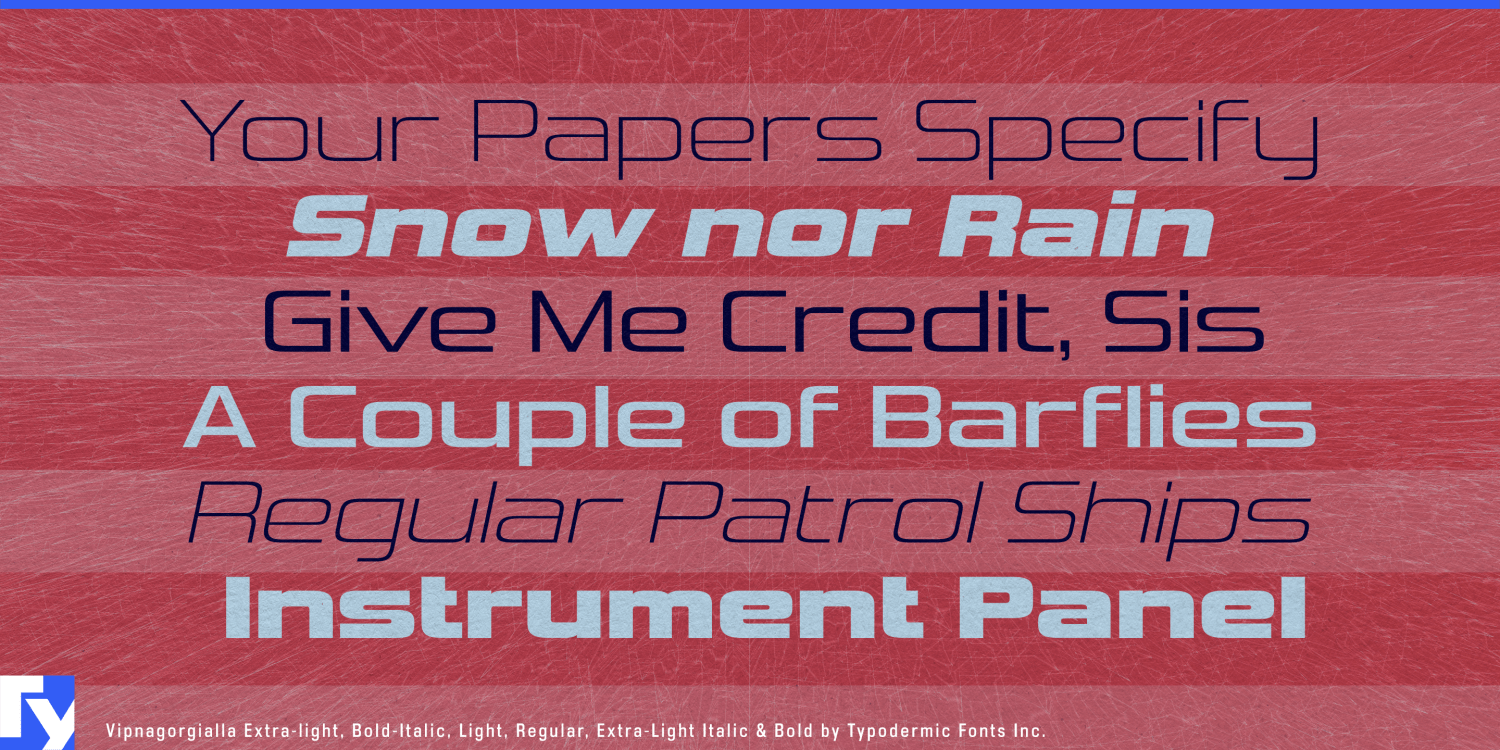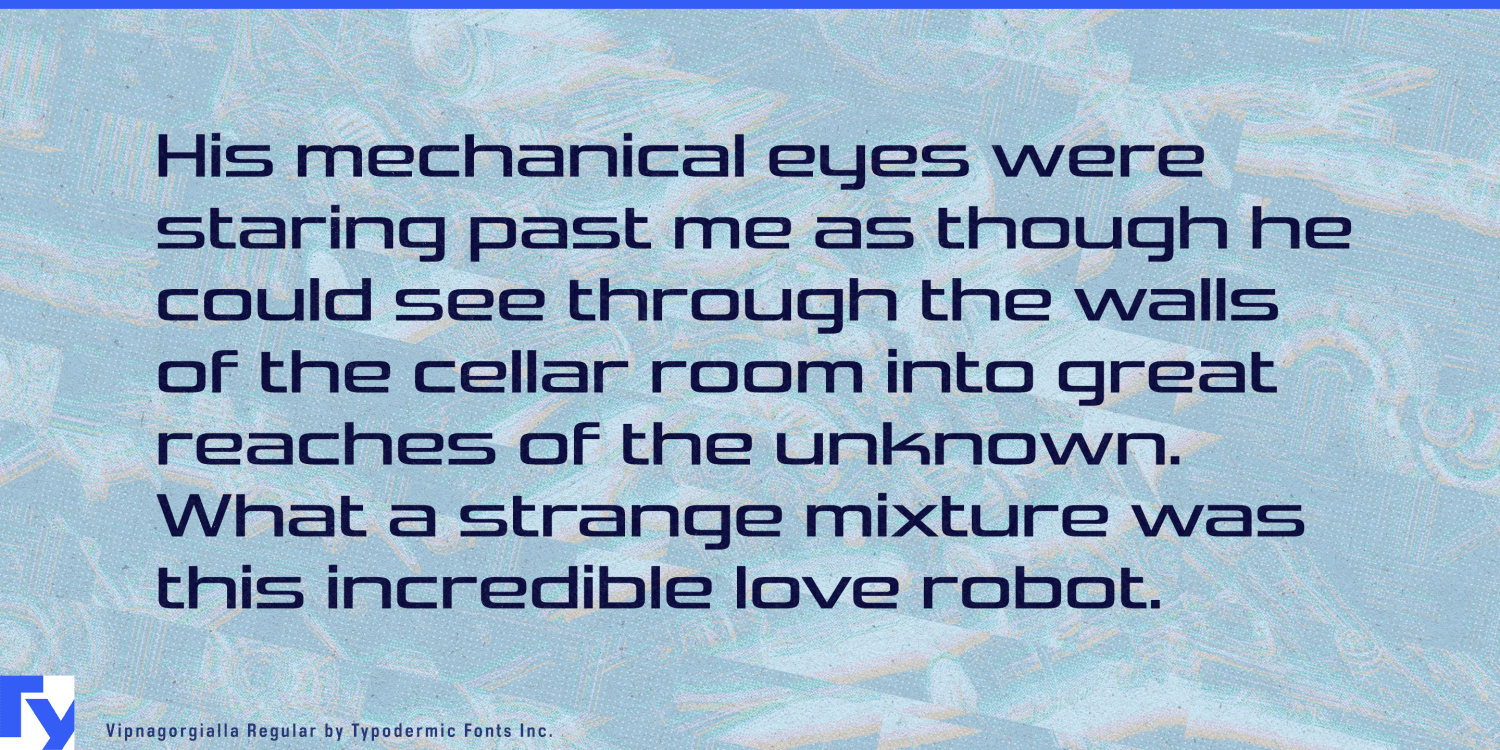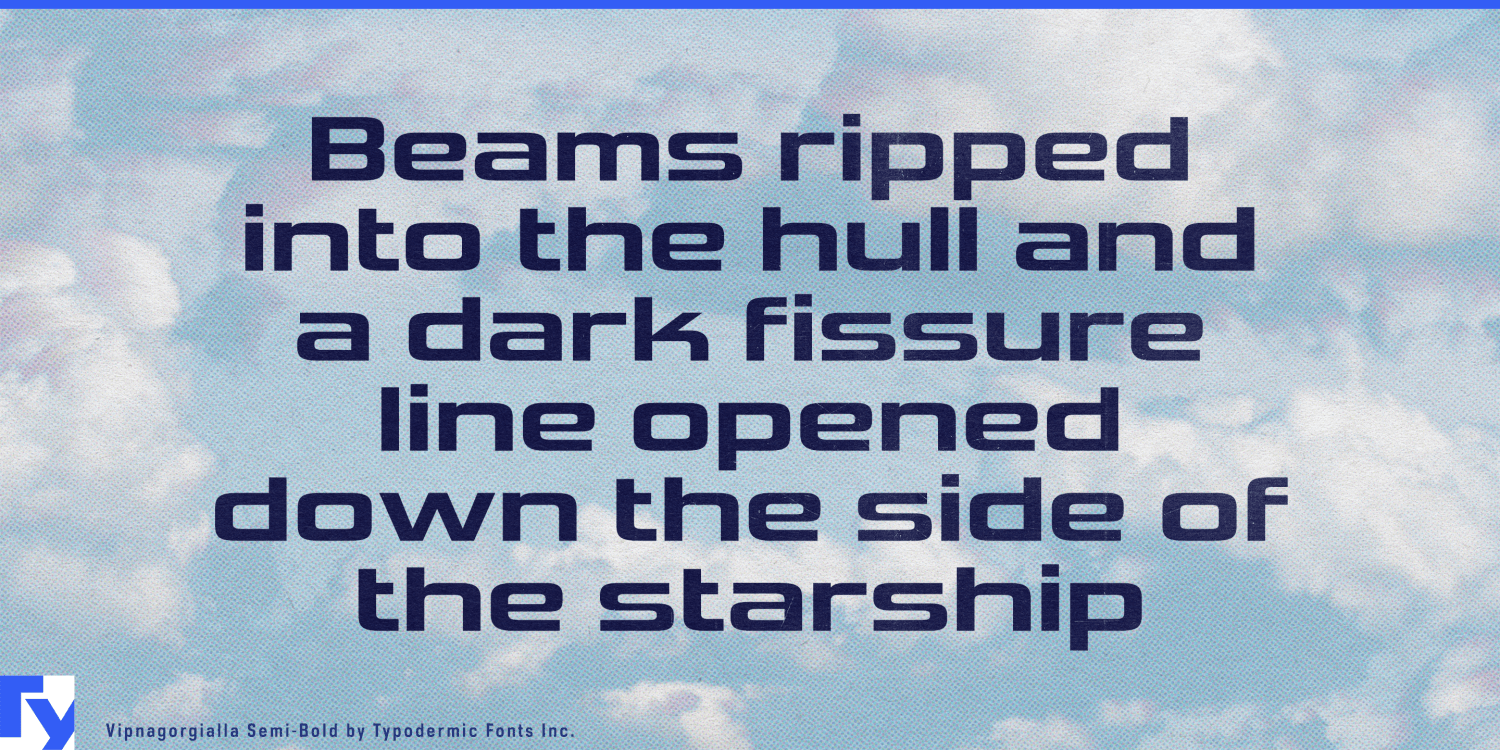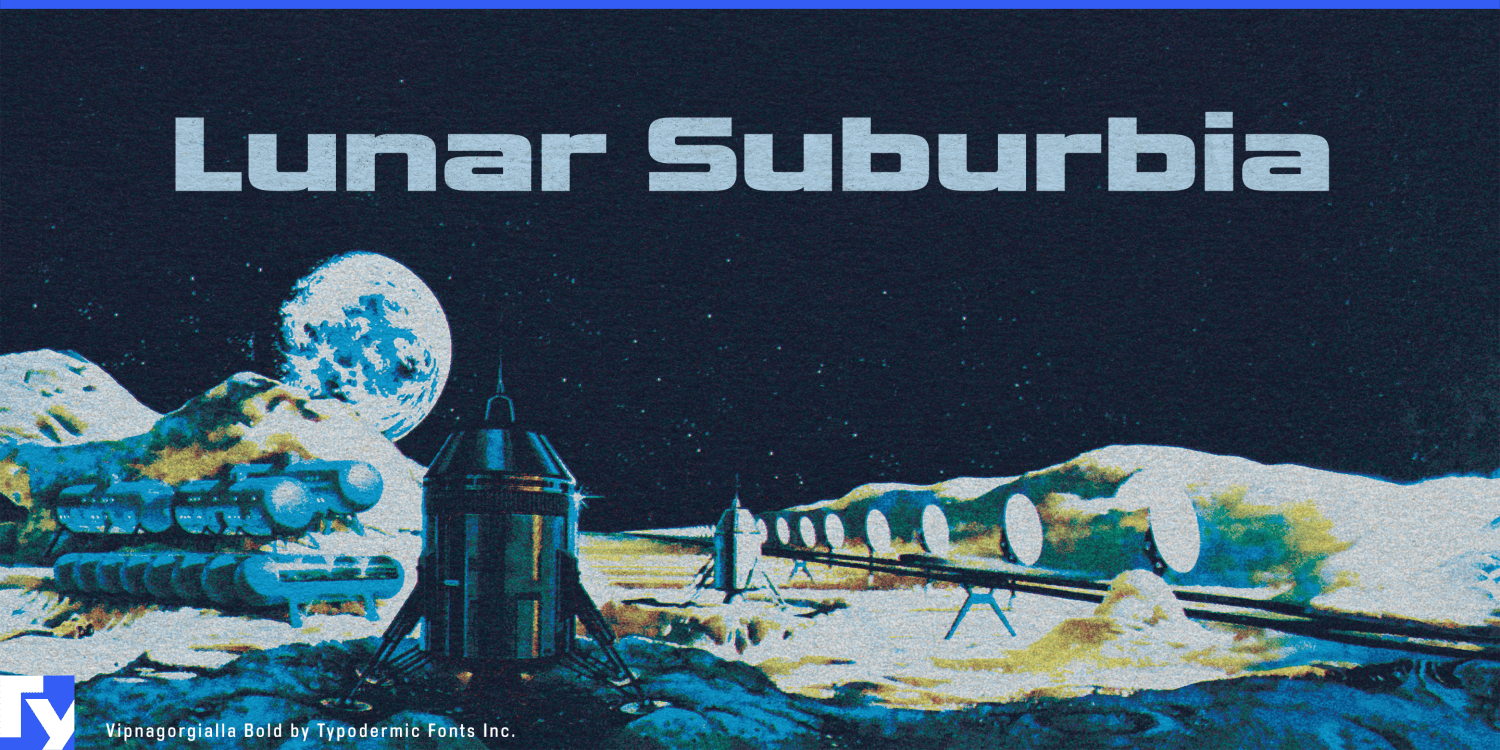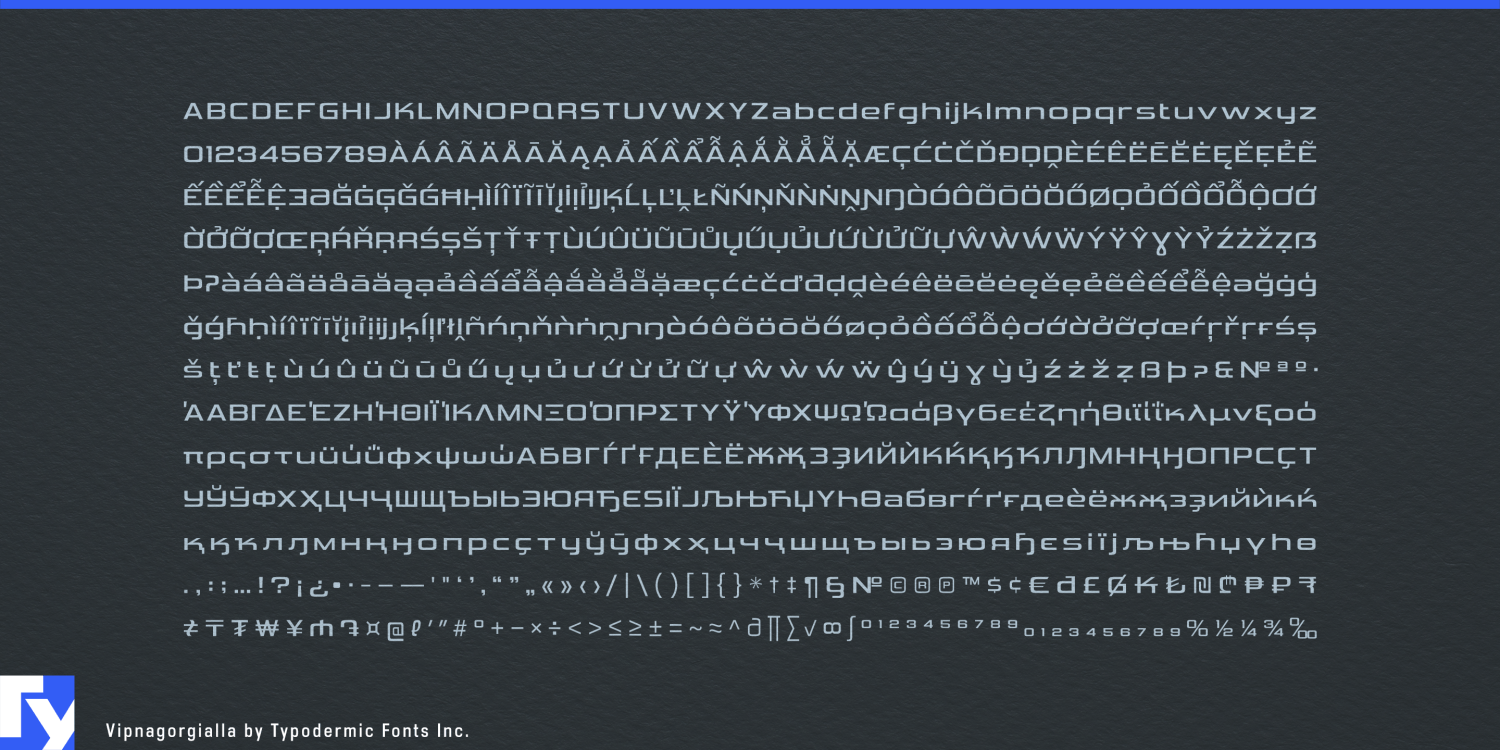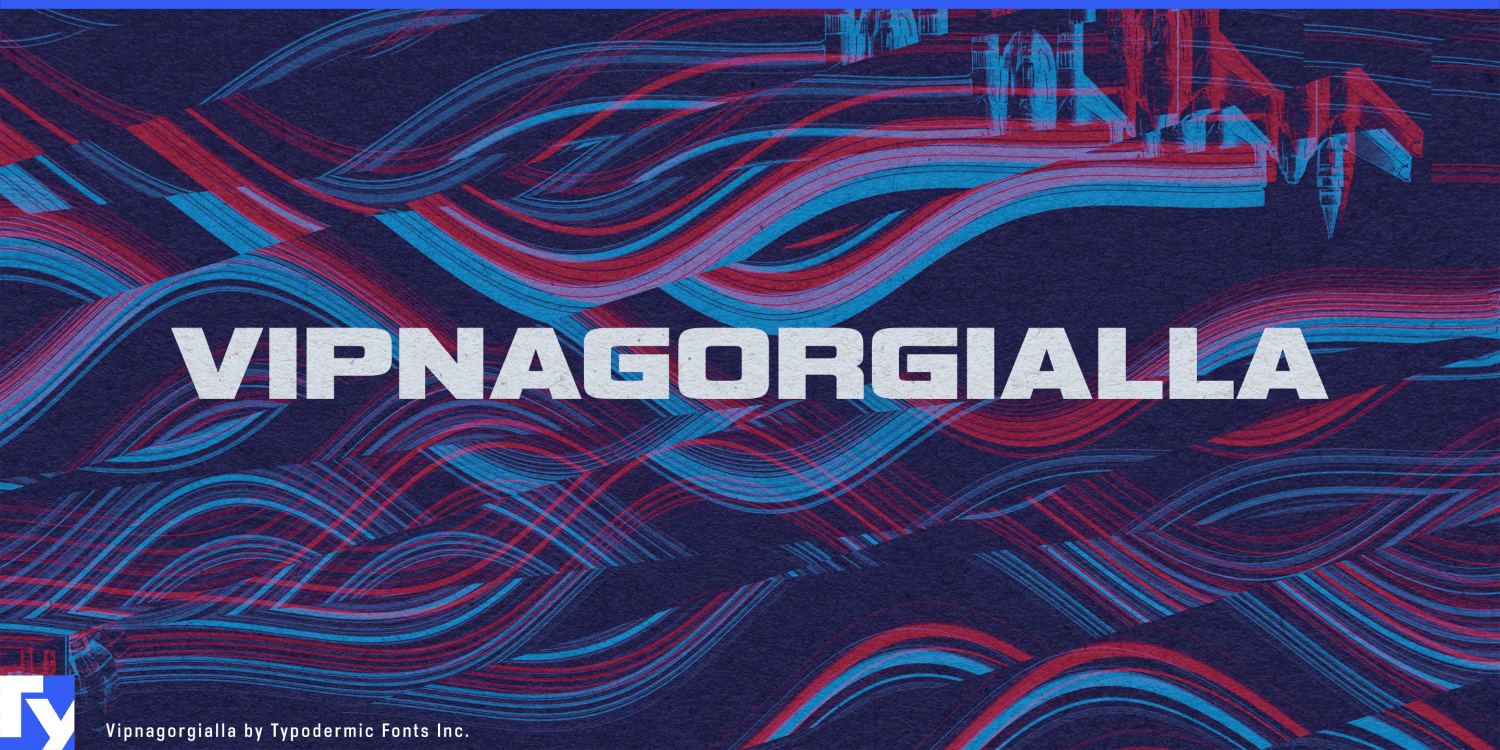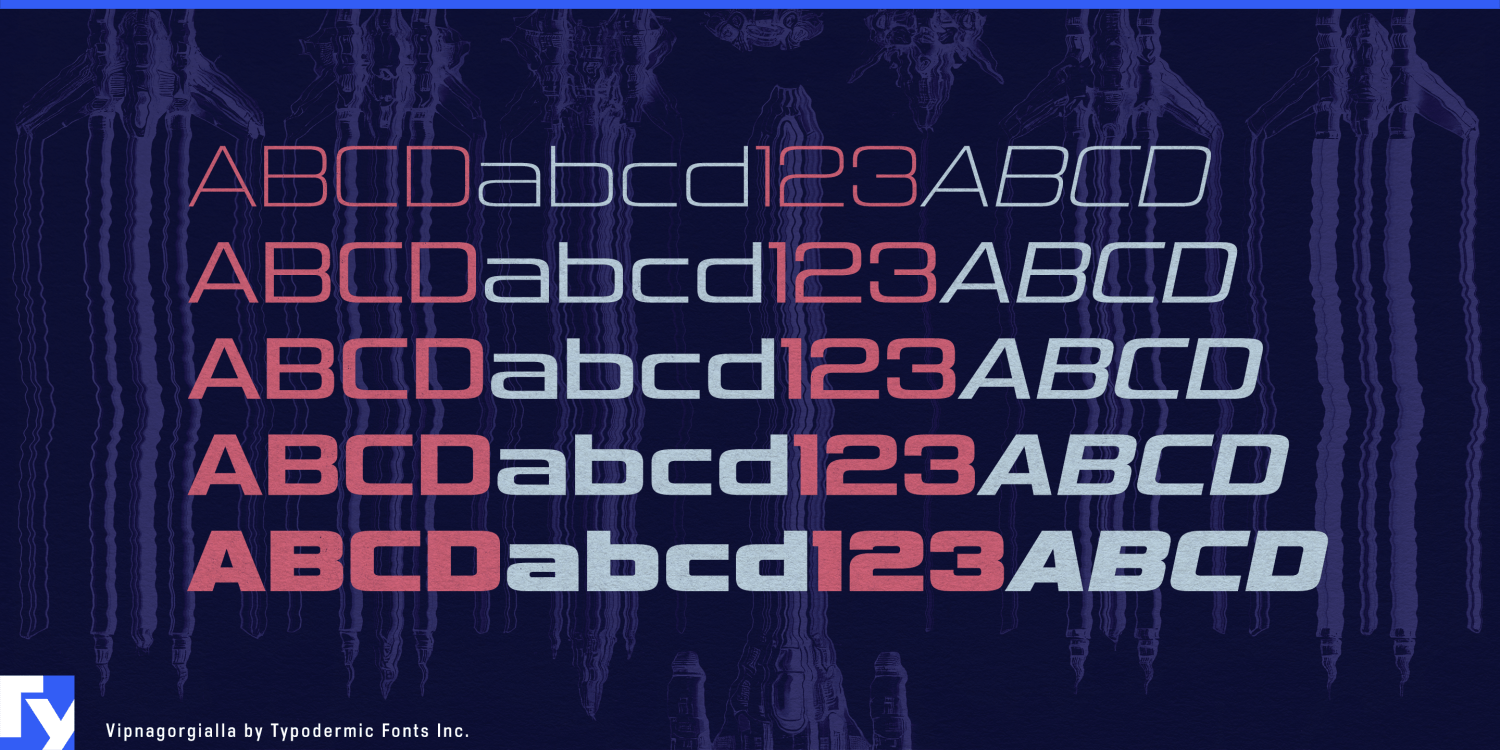
Vipnagorgialla
About Vipnagorgialla
Prepare for liftoff with Vipnagorgialla, the typeface that captures the bold spirit of the space race era. This is a visual countdown to typographic excellence, inspired by the iconic Dodge/Plymouth logotype that roared onto the scene in the late 1960s,…